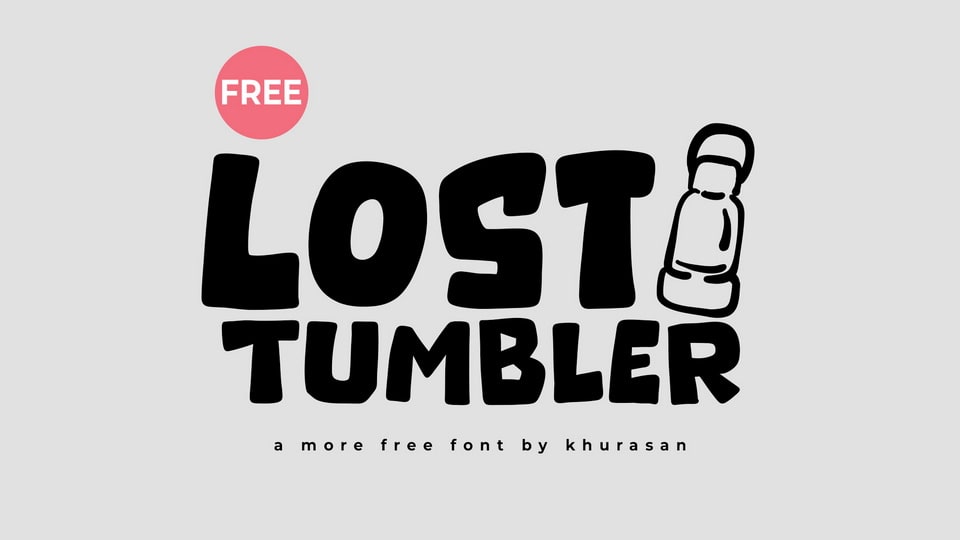
Download Lost Tumbler font, a bold, quirky display typeface with chunky letterforms and a fun, cartoon-like presence. Its thick strokes and playful proportions give it a strong visual impact while keeping a friendly and informal tone.